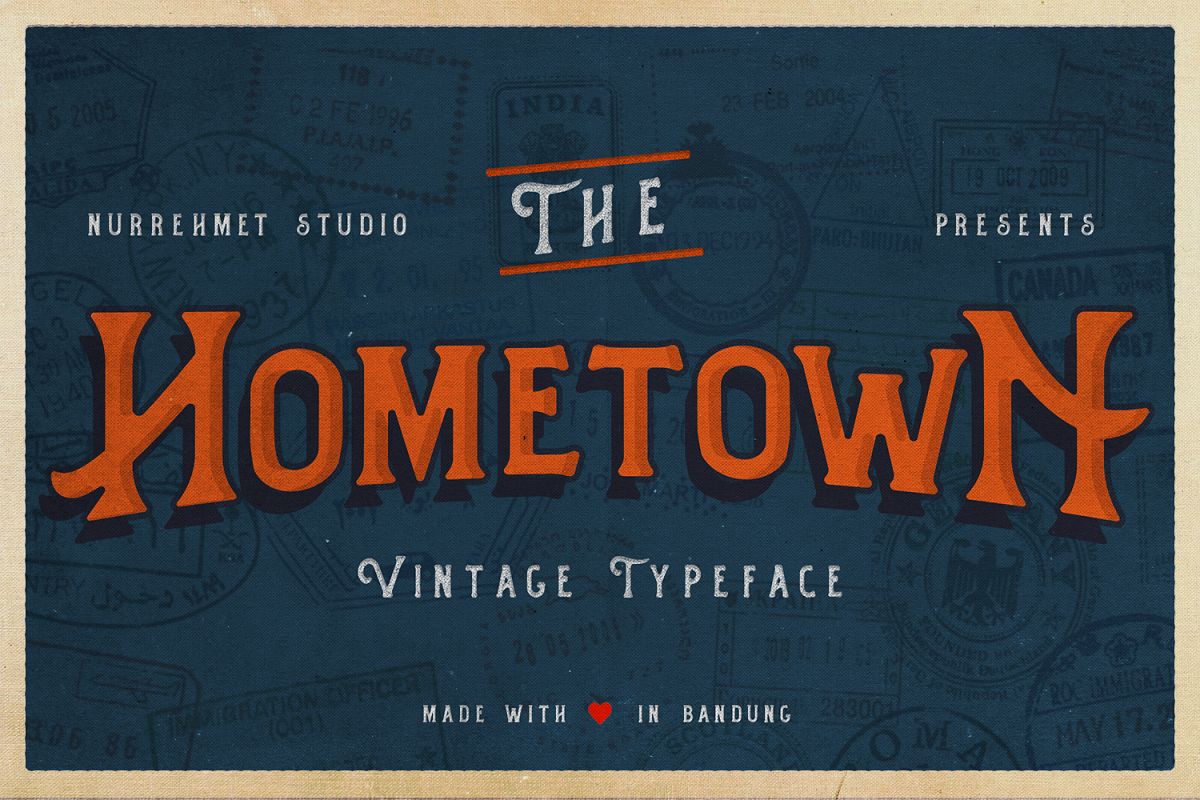
Hometown Vintage Typeface
Hometown is a classic vintage font that inspired from an old postcards design, we created a smooth curve mixed with handdrawn serif. A perfect companion to create a nostalgic homie feels for your creative projects, just play with the uppercase and lowercase characters to make the perfect words!